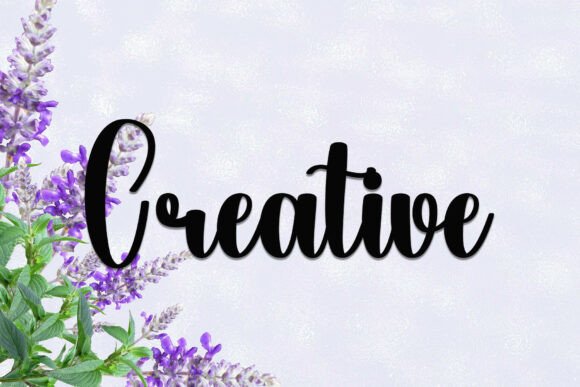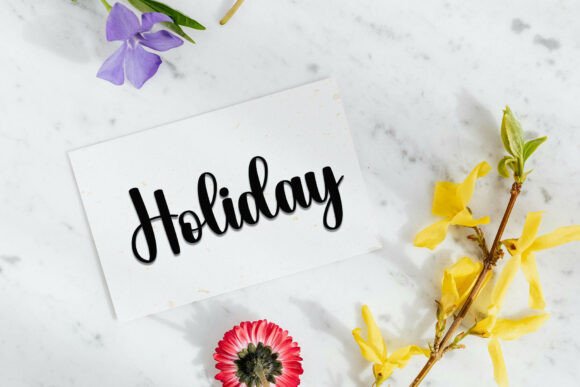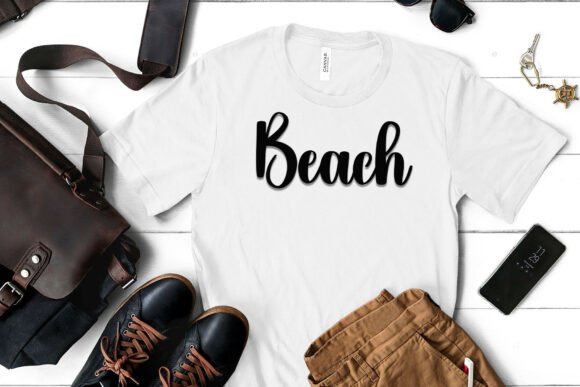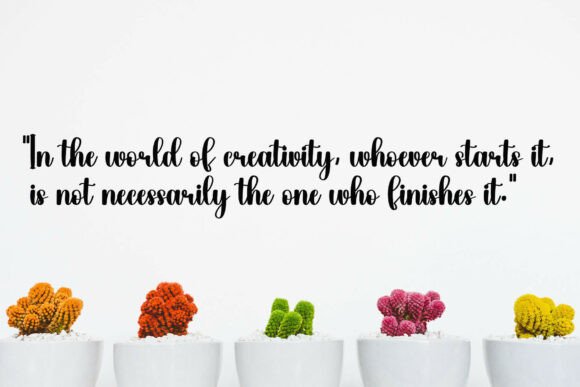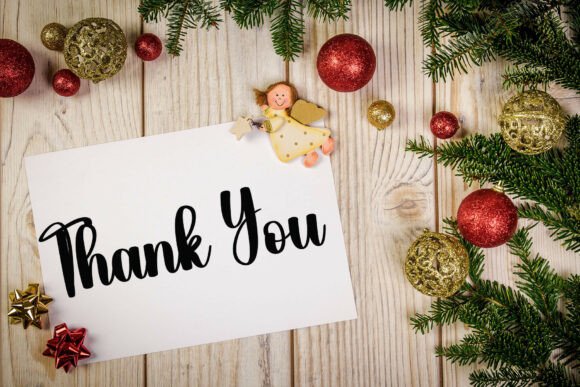
Introduction to Romanticcake Font
Have you ever been working on a creative project and suddenly, the perfect font pops up in your mind, elevating your design from good to stunning? For designers, finding that elusive font can be the difference between a bland and a breathtaking visual. For me, that moment came when I stumbled upon the Romanticcake Font – a modern calligraphy font that combines sweetness and sophistication in every stroke.
What sets Romanticcake Font apart is its ability to add a romantic flair to any design, making it perfect for weddings, love notes, and other sentimental projects. Its bold, smooth curves and fluid letterforms create a playful yet elegant tone that’s sure to captivate your audience. With its charming handwritten essence, Romanticcake Font brings warmth and personality to your designs, making every project truly memorable and stylish.
Key Features of Romanticcake Font
- Unique and elegant script design, perfect for creative projects and romantic themes.
- Perfect for adding a touch of romance and elegance to your designs, making it a great choice for wedding invitations, greeting cards, and more.
Honest Review: Romanticcake Font
I recently had the chance to work with the Romanticcake Font for a creative project, and I must say it’s been a delightful experience. As a designer, I appreciate high-quality design resources that can elevate my work, and this font definitely fits the bill. ✨
Here are some of the things that work well with the Romanticcake Font:
- Its high-quality design makes it perfect for print and digital applications.
- The font is highly customizable, allowing me to adjust the size, color, and style to suit my needs.
- It’s a great addition to any design library, and I’ve already used it in several projects.
However, there are a few limitations to be aware of:
- The font may not be suitable for bold, sans-serif designs, as it’s more suited to elegant, cursive scripts.
- The transparent background option can sometimes make it difficult to read, especially on darker backgrounds.
Overall, I’m thoroughly impressed with the Romanticcake Font. It’s a fantastic design resource that’s perfect for anyone looking to add a touch of romance and elegance to their creative projects. ⚠️ While it may have some limitations, I highly recommend giving it a try!
The Romanticcake Font is a high-quality, free download design resource perfect for creative projects. Its unique and elegant style makes it ideal for various applications, from wedding invitations to social media graphics.
Tips for Getting the Most Out of the Romanticcake Font
Use the Romanticcake Font with a transparent background to create stunning and modern designs. Experiment with different font sizes and colors to achieve the desired effect.
The Romanticcake Font is perfect for various design projects, including:
Social media graphics and ads
Branding and marketing materials
Event invitations and promotional materials
Is the Romanticcake Font suitable for use with a transparent background?
Yes, the Romanticcake Font is designed to be used with a transparent background, making it perfect for creating designs with a subtle, elegant look. The font’s transparent background allows you to easily place it over other design elements, such as images or textures, without any visual clutter.